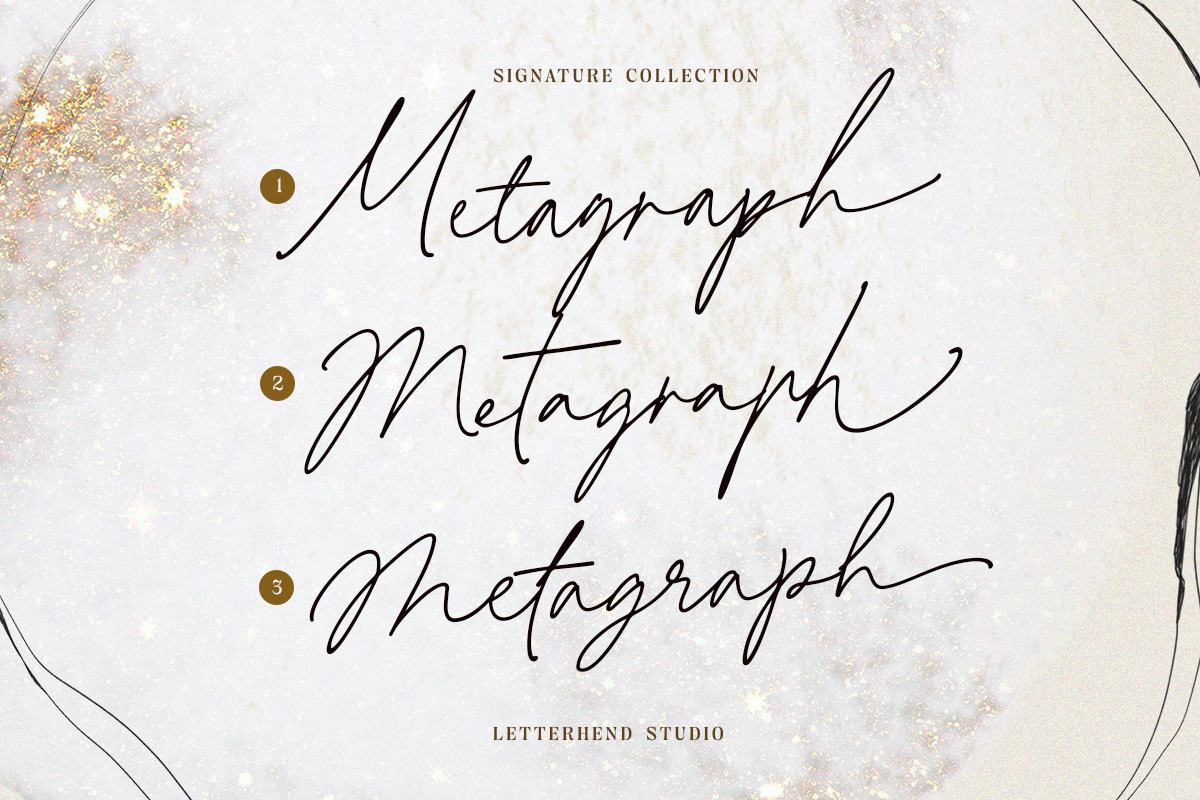
Metagraph Signature Script (3 Fonts) Free Download is a versatile and elegant font bundle that includes three beautifully crafted signature-style script fonts. Perfect for branding, logos, invitations, and other creative projects, this set of fonts offers a variety of flowing, handwritten letterforms to add a personal, sophisticated touch to your designs. Whether you're working on a luxurious project or a personal design, Metagraph brings an authentic, stylish vibe to your work.